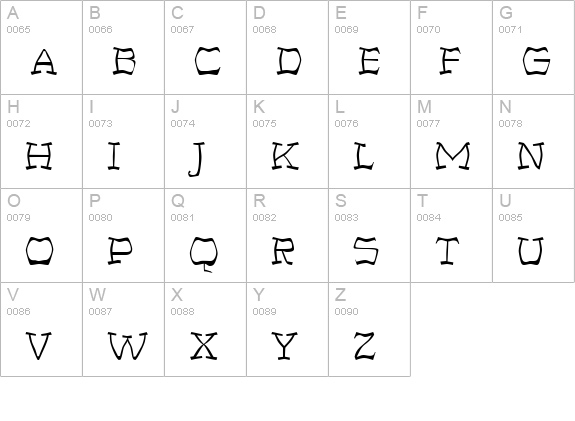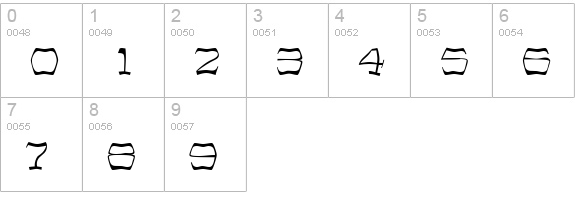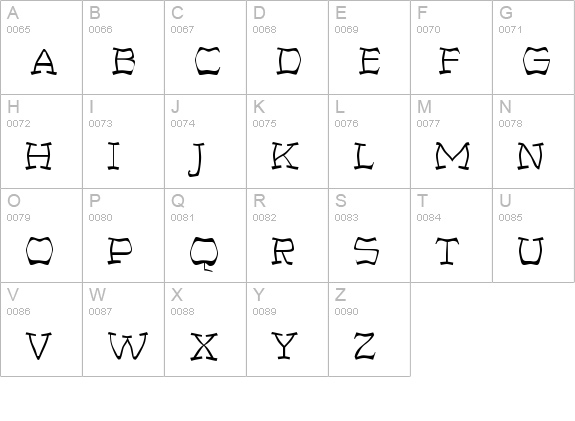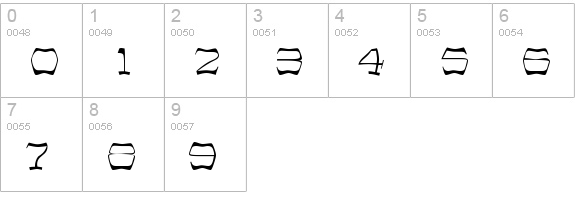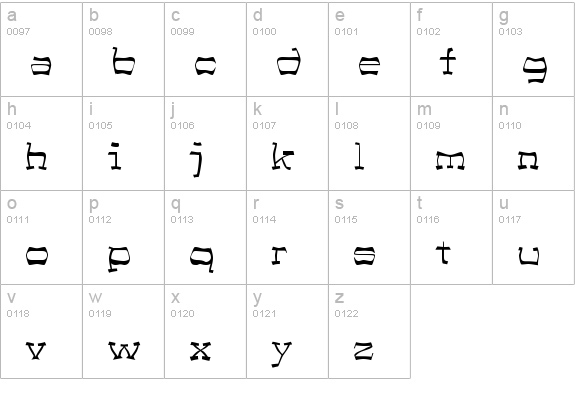
PastedWarp Font Details
Introducing PastedWarp font, a stunning and versatile typeface that will take your design projects to the next level. With its unique and captivating letterforms, PastedWarp is sure to make a lasting impression. This font boasts a modern and edgy aesthetic, perfect for adding a touch of sophistication to your designs. Whether you're working on a branding project, advertising campaign, or simply want to elevate your personal creations, PastedWarp has got you covered. But what sets PastedWarp apart from the rest? It's not just its eye-catching design, but also the fact that it is available for free. Yes, you read that right! PastedWarp can be freely downloaded at FontsMarket.com, allowing you to access this incredible font without breaking the bank. Downloading PastedWarp is a breeze, and once you've got it in your design arsenal, the possibilities are endless. Its versatility allows it to seamlessly adapt to various design styles and applications, making it a go-to choice for both professional designers and hobbyists alike. Whether you're looking to create bold headlines, impactful logos, or captivating social media graphics, PastedWarp has the versatility to make your designs stand out from the crowd. Its clean lines, unique curves, and attention-grabbing details will instantly captivate your audience, leaving a lasting impression. So why wait? Download PastedWarp today from FontsMarket.com and unleash your creativity. With its incredible design and the added bonus of being free, PastedWarp is a must-have font for any designer looking to make a statement.